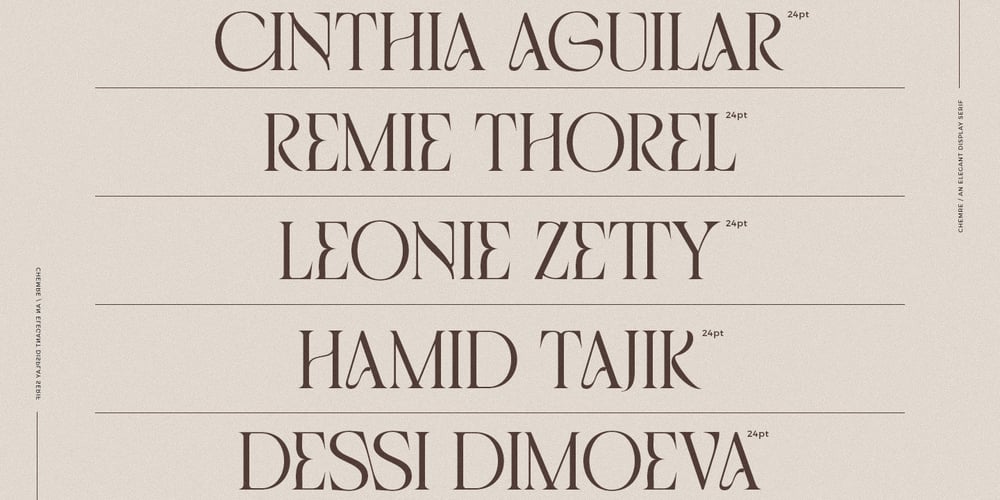
Chemre
Chemre font
Chemre Font Family was designed by Zahratul Laila and published by Dora Typefoundry. Chemre contains 2 styles and family package options. Chemre is a serif font filled with a modern and classy atmosphere. This font is complementedwith a mix of all caps. which is the same height and allows for unlimited combinations to give a unique style to your typography. The high contrast between thick and thin strokes gives Chemre a luxurious look. This font comes in two styles, Regular and Italic Version. Chemre is suitable for posters, packaging, branding, logotypes, headlines, titles and editorial designs.Features: 48 Ligatures – Standard Multi-Language Support Alternative Characters A, C, S, T, V, W, Y Unicode PUA Encoded This type of family has become a work of true love, making it as easy and enjoyable as possible.I really hope you enjoy it!I can’t wait to see what you do with CHEMRE! Feel free to use the #Dora Typefoundry tag and the # Logo CHEMRE font to show what you’ve been up to!